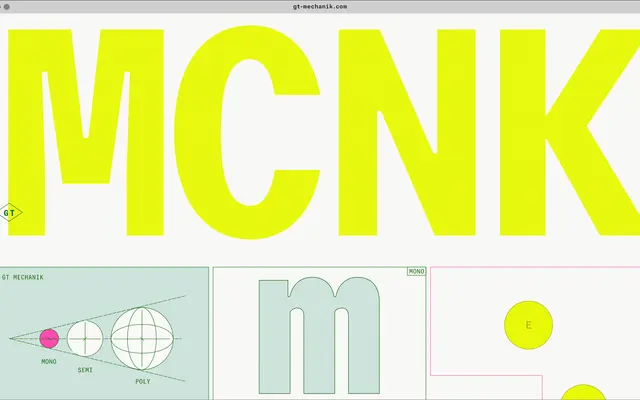
GT Mechanik
Grilli Type · Shiva Nallaperumal, Reto Moser, Noël Leu · 2026
A 42-style mono-derived system that runs from true Mono through Semi to fully proportional Poly.
A monospace-rooted system by Shiva Nallaperumal, Reto Moser and Noël Leu, released in 2026 and offered in 42 styles. Grilli describe the idiosyncratic features of electromechanical typesetting as guiding principles along a tone axis, with Mono, Semi and Poly each carrying that logic at different scales. Seven weights from Thin to Black come with Obliques in each cut, useful for editorial, technical and product UI work where you want a measured mechanical voice.
Grilli describe it as dialling in the appeal of electromechanical text systems by building an inevitable family around its monospace style. Mono, Semi and Poly each carry that logic at different scales and intensities.